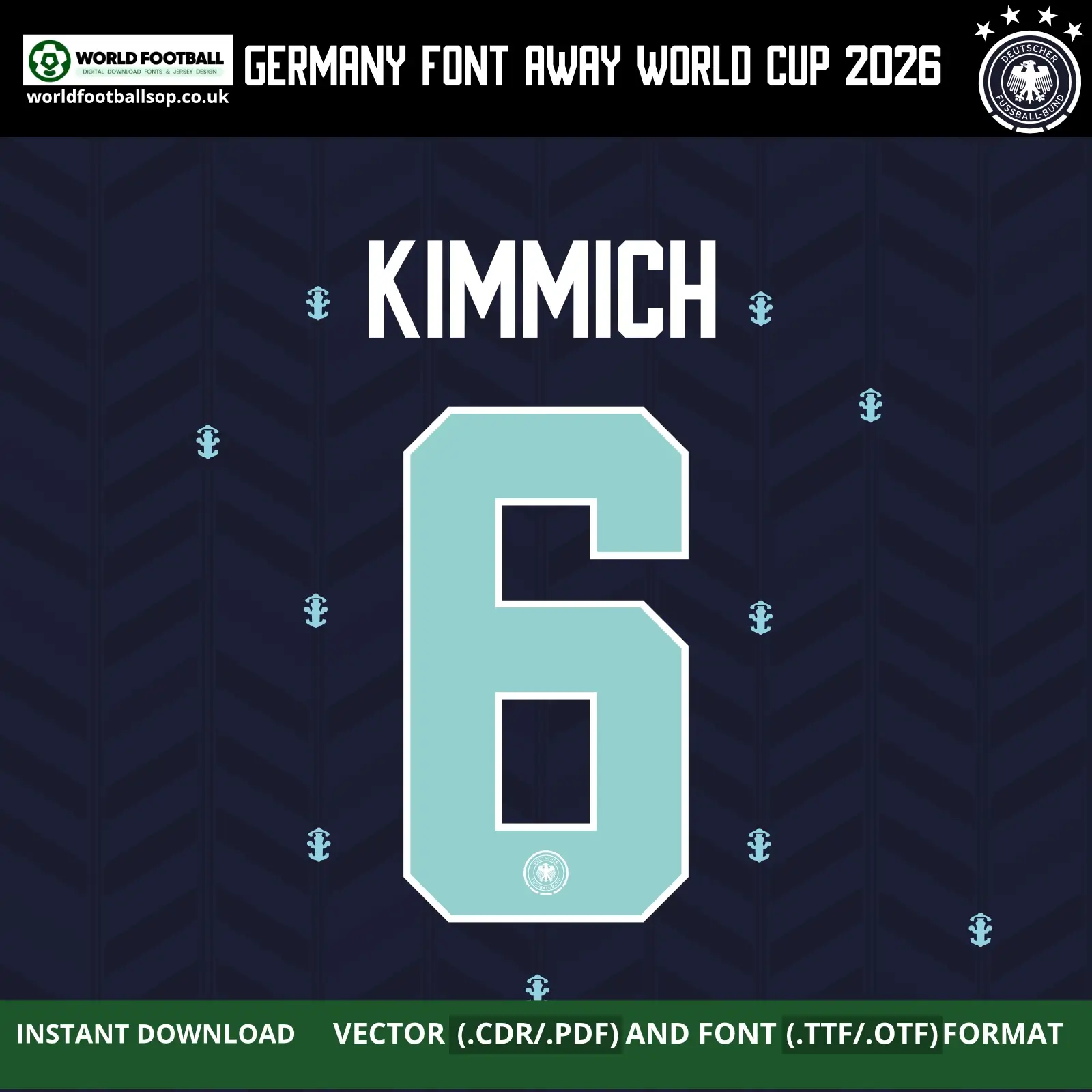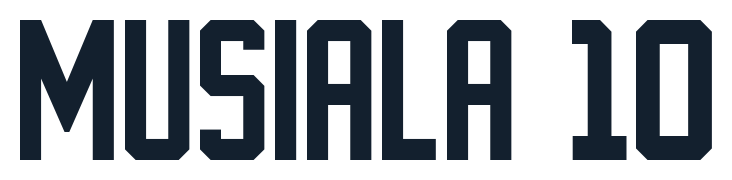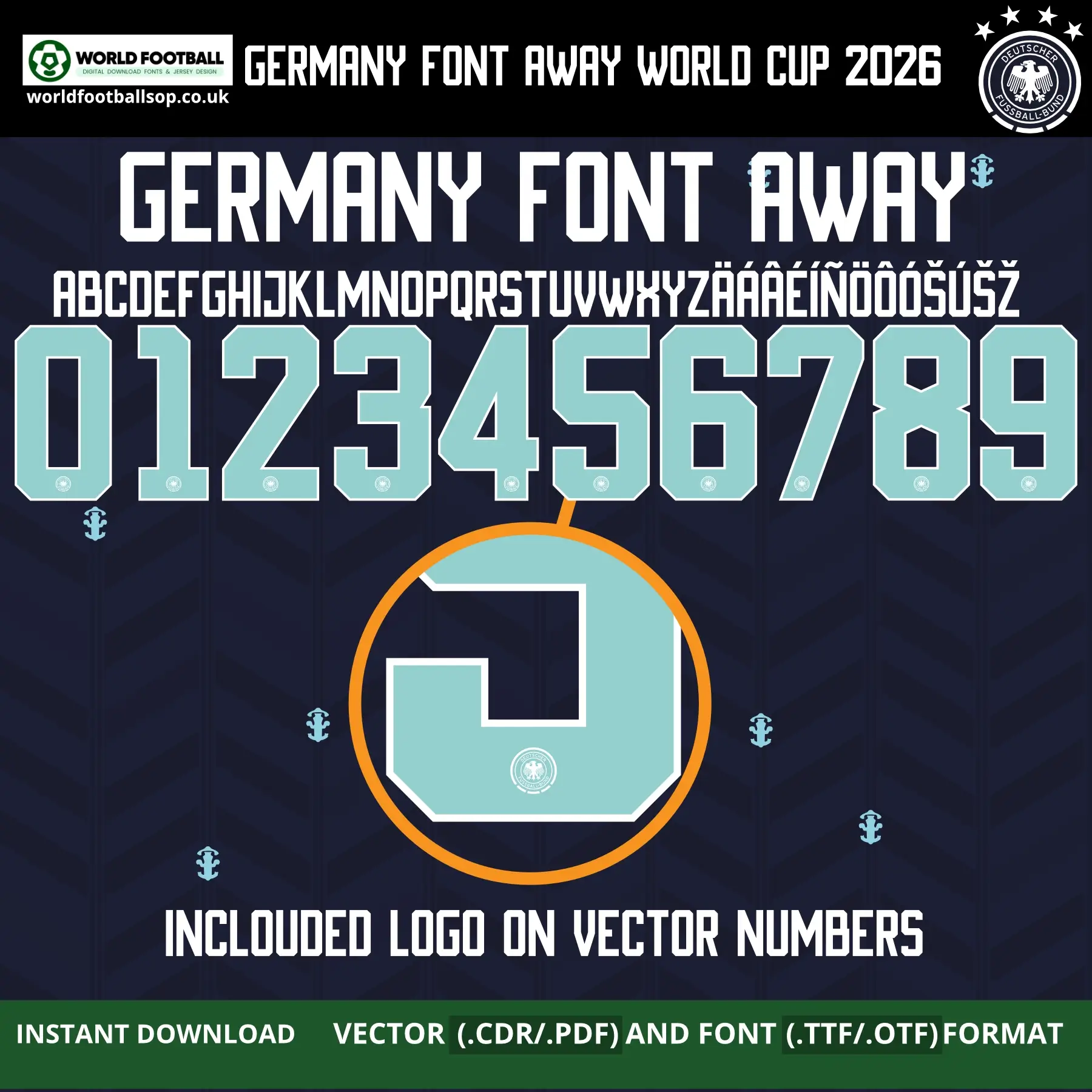
Germany Font Away World Cup 2026 recreates the mint block numbers and letters from the DFB’s navy 2026 away kit. Download TTF, OTF and vector files (CDR, PDF) with full A-Z alphabet, accents and 0-9 numbers including DFB crests on vector digits for authentic Kimmich 6 away namesets.
Germany Font Away World Cup 2026 - Retro Mint on Navy
The Germany Font Away World Cup 2026 pack is inspired by Adidas’ bespoke retro typeface created for the DFB’s last World Cup with the brand. Your design mirrors the tall, blocky numbers with sharp, angular corners and clean inner shapes, matching the classic aesthetic of the navy away kit. The mint colour of the digits sits on a dark blue chevron pattern background, echoing the real 2026 away shirt with its zig‑zag graphic and maritime navy, white and mint palette.
Perfect for kit printers, designers and collectors, this pack lets you build accurate Germany 2026 World Cup away namesets for stars like Kimmich, Musiala and Havertz. Vector versions feature the DFB badge inside the bottom of each number, while the installable TTF/OTF fonts stay clean for posters, overlays and social media graphics.
Germany away font World Cup 2026 – bold mint green numbers 0-9 and full alphabet on dark navy away kit background with Havertz 7 and Woltemade 11 jerseys Germany Away Font World Cup 2026 – bold mint green jersey font with full numbers and alphabet, available in TTF, OTF, CDR and PDF at worldfootballshop.co.uk
• Full uppercase A-Z alphabet plus extended characters (Ä Ö Ü ß and accented letters) for German and international player names.​​
• Numbers 0-9 in official away style, sized for back printing and adaptable for shorts or sleeve applications.​​
• Preview layouts: KIMMICH 6 single nameset, full numeric set with alphabet, and zoomed number detail showing the included crest.
This pack is ideal for custom Germany 2026 away jerseys, World Cup themed artwork, fantasy kits and fan merch using the final Adidas x Germany mint‑on‑navy look.
Design highlights
• Retro block style: Strong squared shapes with crisp angles and subtle inner cuts reflect the bespoke 1990s‑inspired Germany 2026 kit font.
• Mint and navy palette: Light mint digits contrast against a deep navy base with tonal chevrons, matching the real away shirt’s maritime colorway.​
• High visibility: Bold outlines and generous counters give excellent readability on‑pitch and on TV while keeping a clean, modern feel.